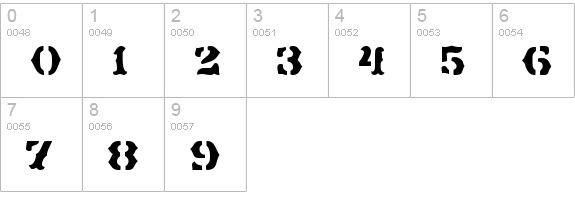
Maverick BE Font Details
Maverick BE is a stunning and versatile font that exudes a sense of boldness and individuality. With its unique and eye-catching design, it effortlessly captures attention and adds a touch of creativity to any project. Whether you are creating a logo, designing a website, or crafting a captivating headline, Maverick BE is the perfect choice to make a lasting impression. This free font offers a wide range of character variations, allowing you to experiment and create unique typographic compositions. From its sleek and modern letterforms to its subtle yet distinct details, Maverick BE effortlessly blends elegance with a touch of rebelliousness. One of the best aspects of Maverick BE is that it is freely available to download at FontsMarket.com. This means that you can easily access and use this font in your personal or commercial projects, without any restrictions. Whether you are a professional designer or an aspiring creative, Maverick BE empowers you to unleash your imagination and bring your ideas to life. Download Maverick BE today from FontsMarket.com and discover the freedom to express your creativity with this exceptional font. Don't miss out on this opportunity to enhance your designs with a font that truly stands out. Embrace the Maverick BE font and let your imagination soar.